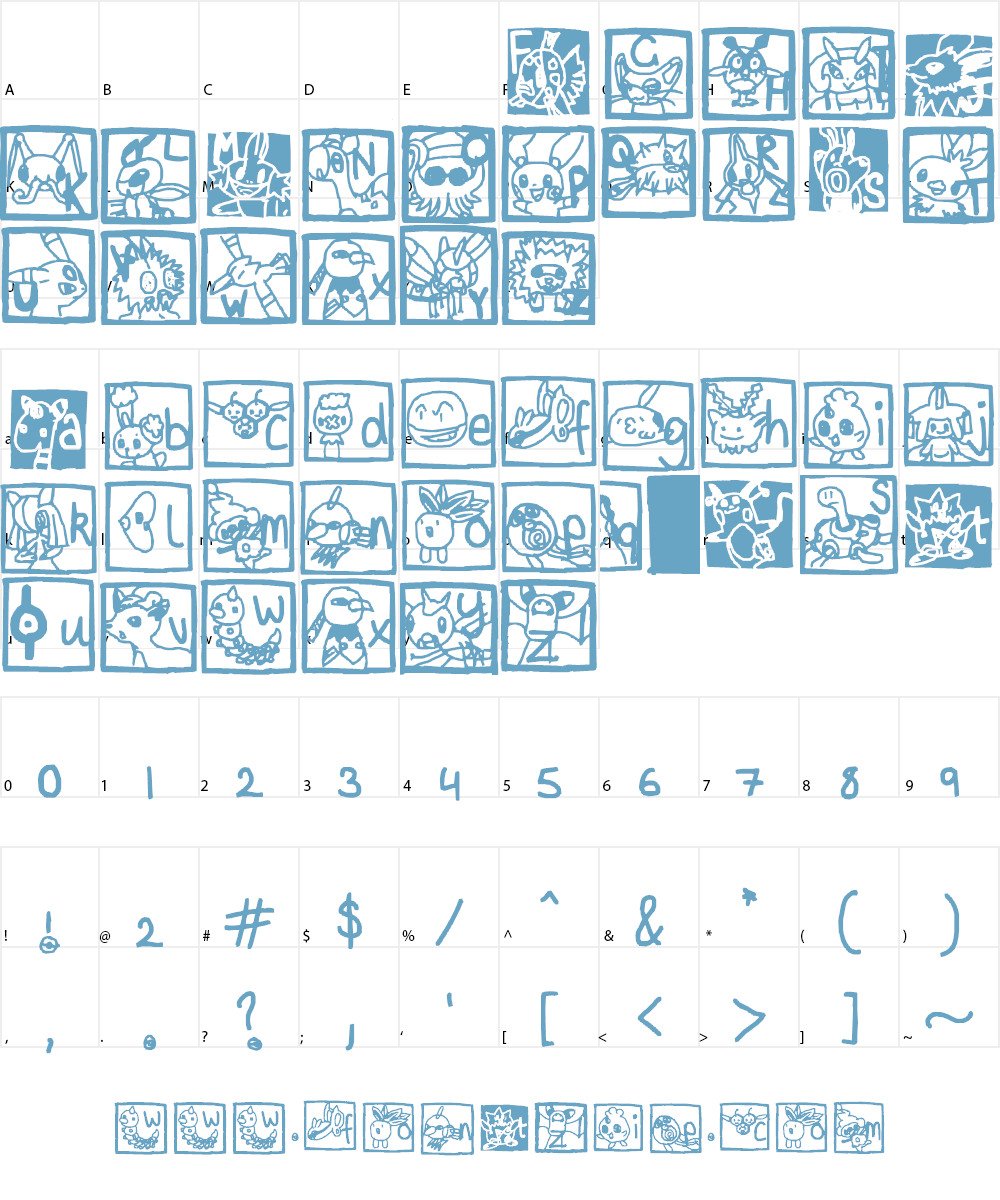
okay guys, this was perfect, until the program im using died
the lower case f r and t are in negative for some reason
and the uppercase j f m and s flailed as well -.-
and the lowercase q has a random black box next to it
AND I HAVE NO IDEA WHY THIS HAPPENED
DOFHREIFGWHEIFHRIHBFEWIBGFIOUEWQHDEDH :@ :@ :@
Majorly pissed off